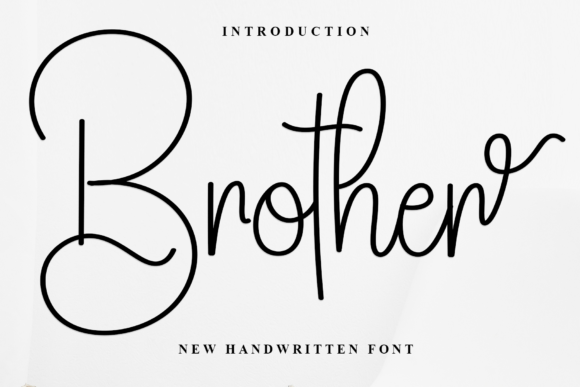
The Brother Font: A Timeless Elegance for Your Creative Projects
Have you ever been in the middle of a design project, and suddenly, you’re stuck on finding the perfect font? I recall a particularly frustrating experience when a client requested a font that was “elegant, yet playful” for their branding. After hours of scouring through font libraries, I stumbled upon the Brother font. It was love at first sight! With its delicate and well-balanced characters, it brought my client’s vision to life. In this article, I’ll share with you why I’m obsessed with the Brother font, its features, and how to make the most of it in your designs.
An Honest Review of Brother Font
• ✨ Elegant and Timeless Design: The Brother font boasts a classic, sophisticated look that fits a wide range of design projects.
• ✅ PUA Coded for Easy Access: Being PUA coded means you can easily access all the amazing glyphs and ligatures, making your design process smoother.
• 🌈 Versatility: It pairs well with various design styles, from minimalist to elaborate, making it a versatile addition to your font library.
While the Brother font is exceptional, there are a few things to keep in mind:
• 🤔 Limited Use in Non-Design Platforms: Some platforms might not support OpenType features or glyphs, limiting the font’s full potential.
• ⚠️ Requires Some Learning Curve: To fully utilize the font’s capabilities, such as accessing glyphs and ligatures, you might need to familiarize yourself with OpenType features in your design software.
While the Brother font’s exact origins might be shrouded in mystery, it’s clear that it was crafted with love and attention to detail. Imagine a designer, fueled by passion and a vision for elegance, meticulously crafting each character to ensure harmony and beauty. This font is a testament to the power of typography in elevating design.
Q: Is Brother font suitable for body text?
A: Absolutely! Its readability and elegance make it a great choice for both headings and body text.
Q: Does Brother font support OpenType features?
A: Yes, being PUA coded and supporting OpenType features, you can access a wide range of glyphs and ligatures.